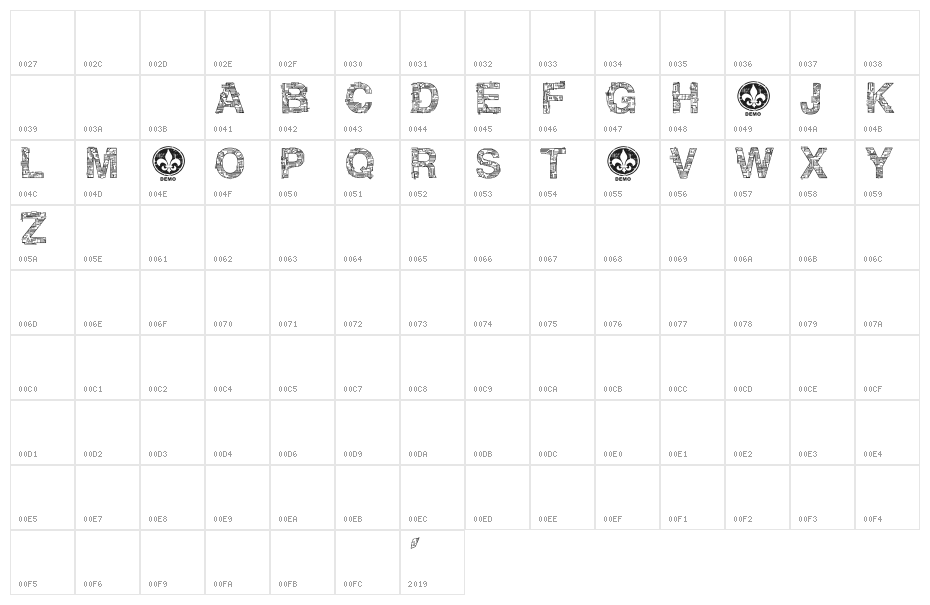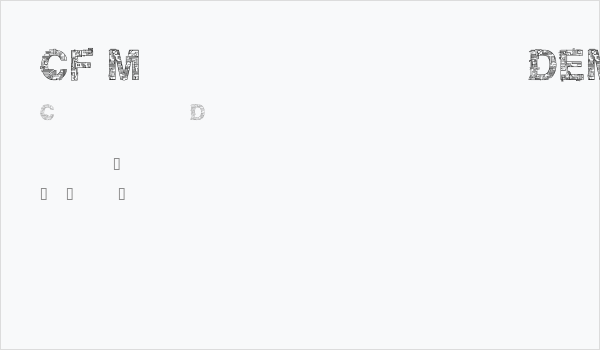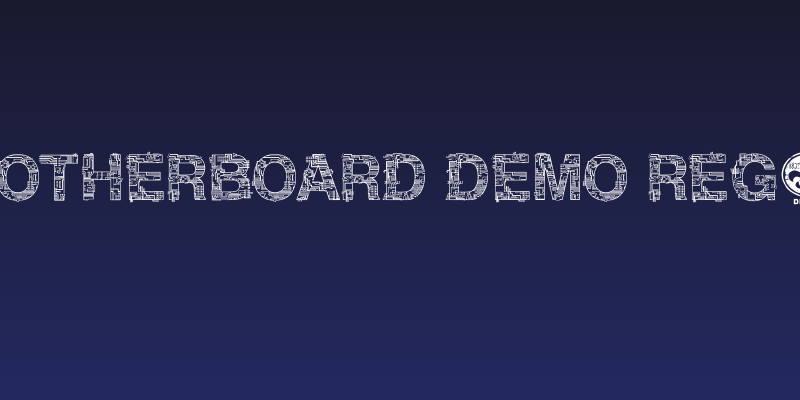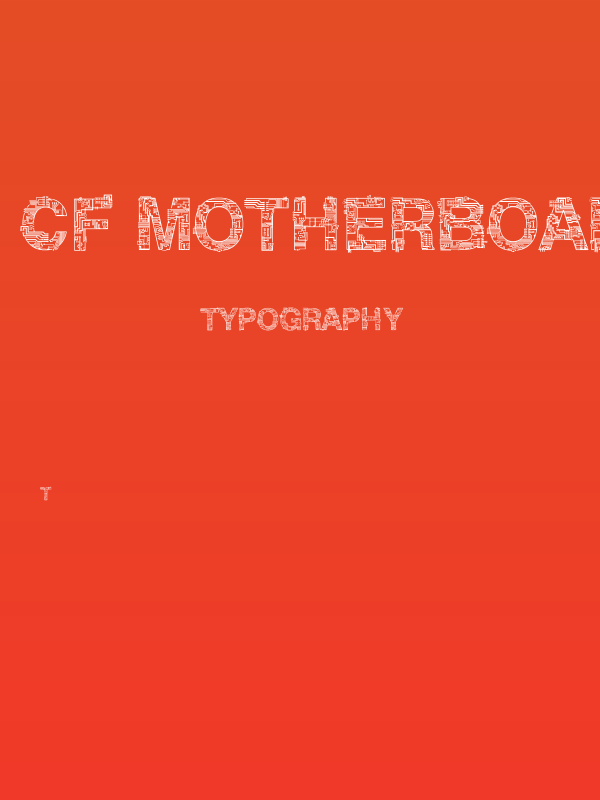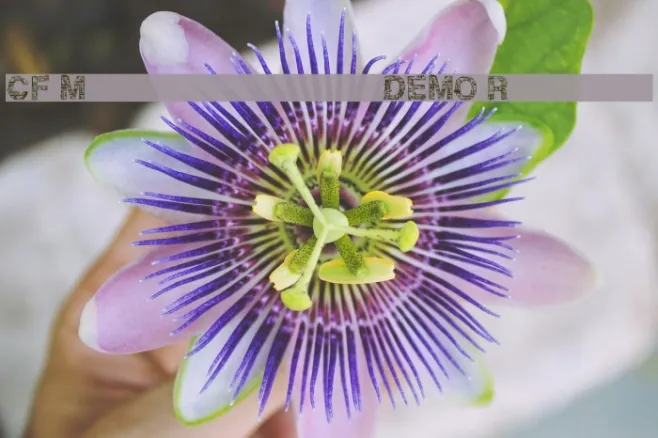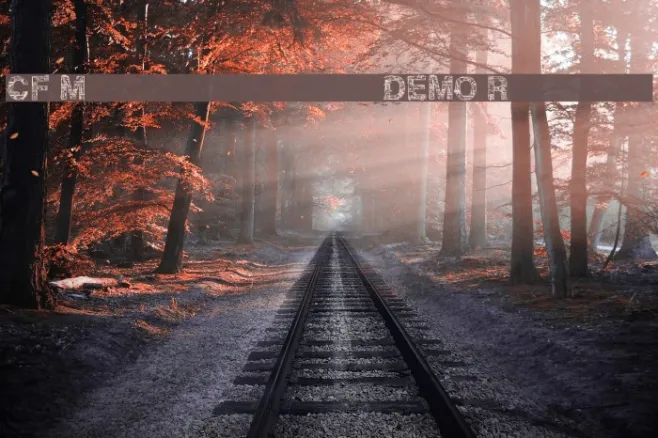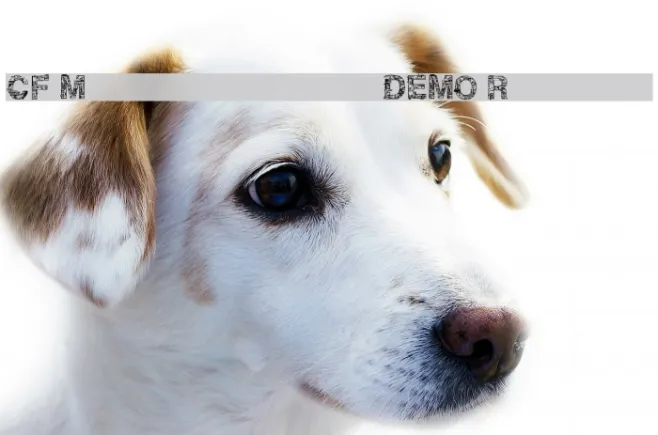
CF Motherboard DEMO Regular Font
CF Motherboard DEMO Regular Description
This font features a unique and intricate design, incorporating elements that resemble circuit board patterns within each character. The uppercase letters are bold and decorative, making them stand out with a high-tech, futuristic aesthetic. The font does not include lowercase letters or numbers, focusing solely on uppercase characters. The detailed design within each letter gives it a complex and textured appearance, suitable for projects that require a technological or industrial theme.
| Overall Style | Futuristic |
| Use Case | Logos, Headlines |
| Proposed Projects | Perfect for technology-related branding, sci-fi posters, video game titles, and any project needing a futuristic or industrial look. |